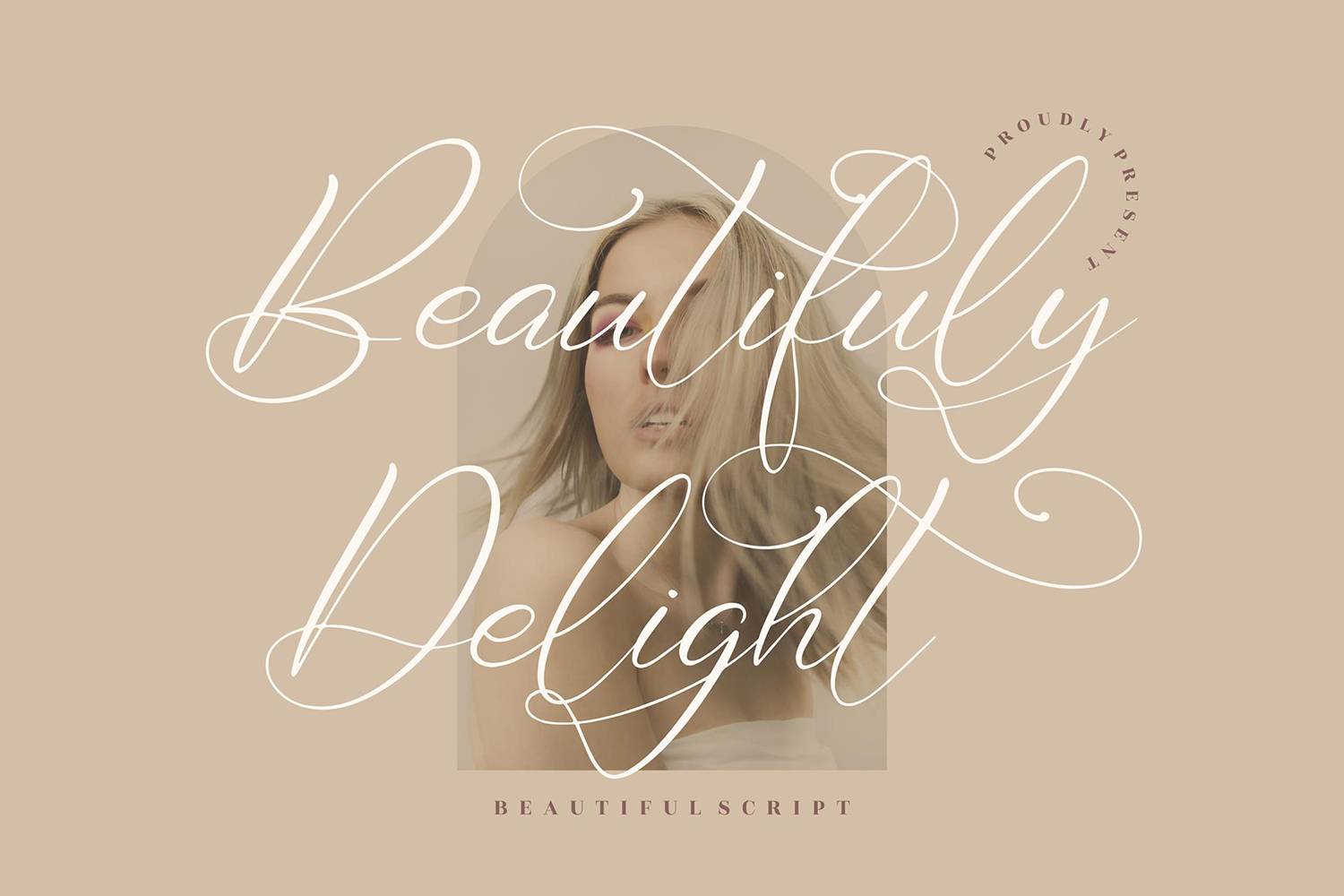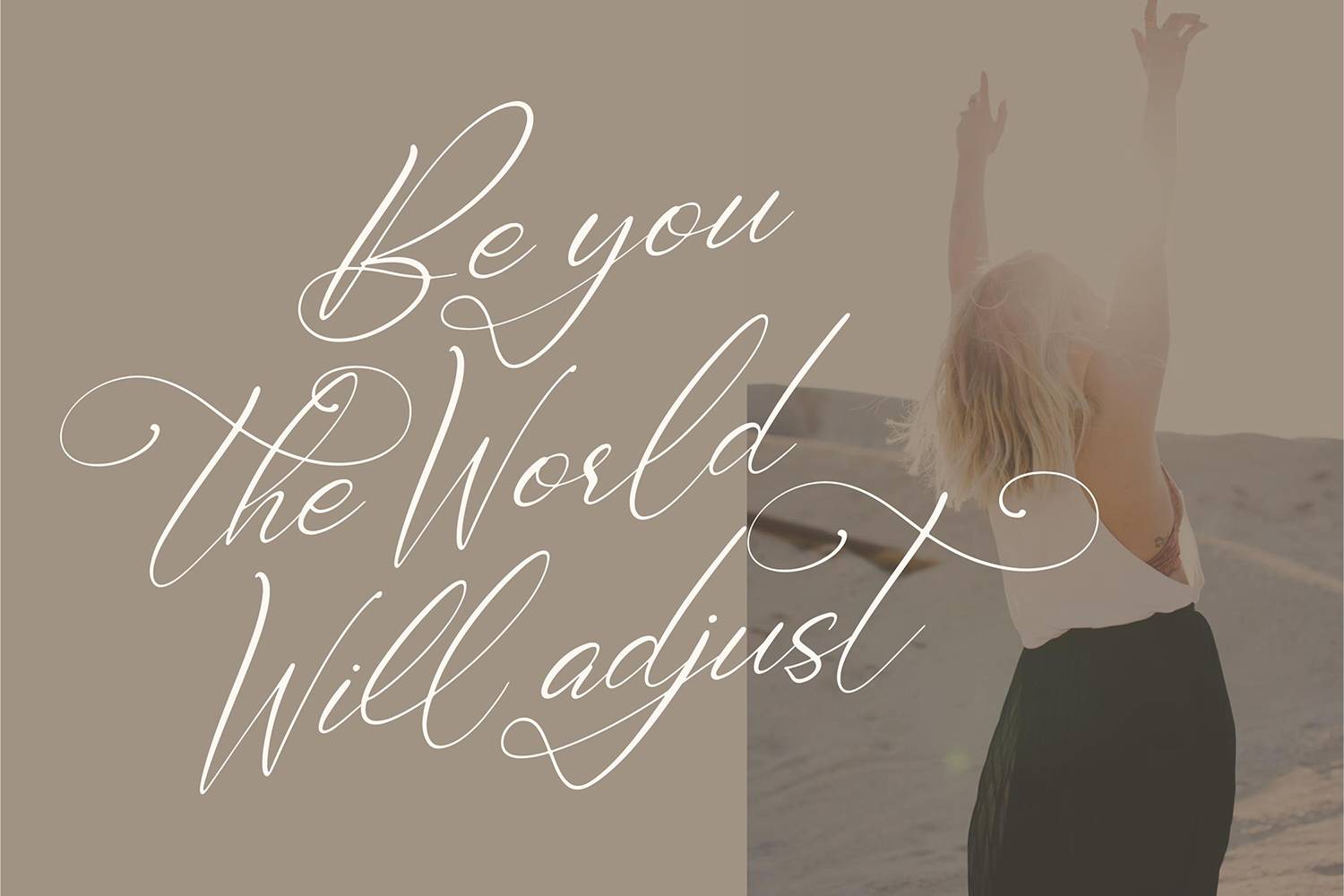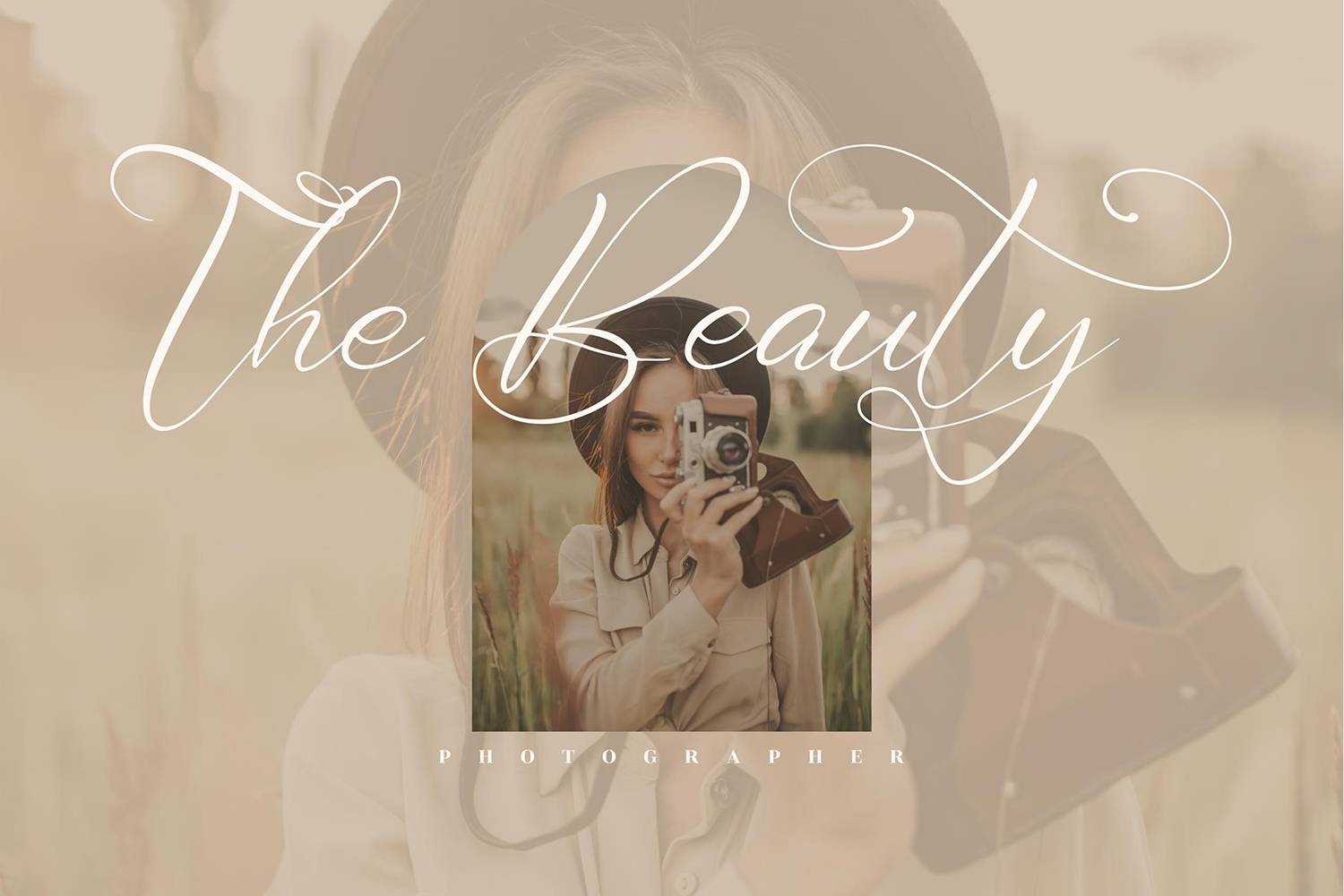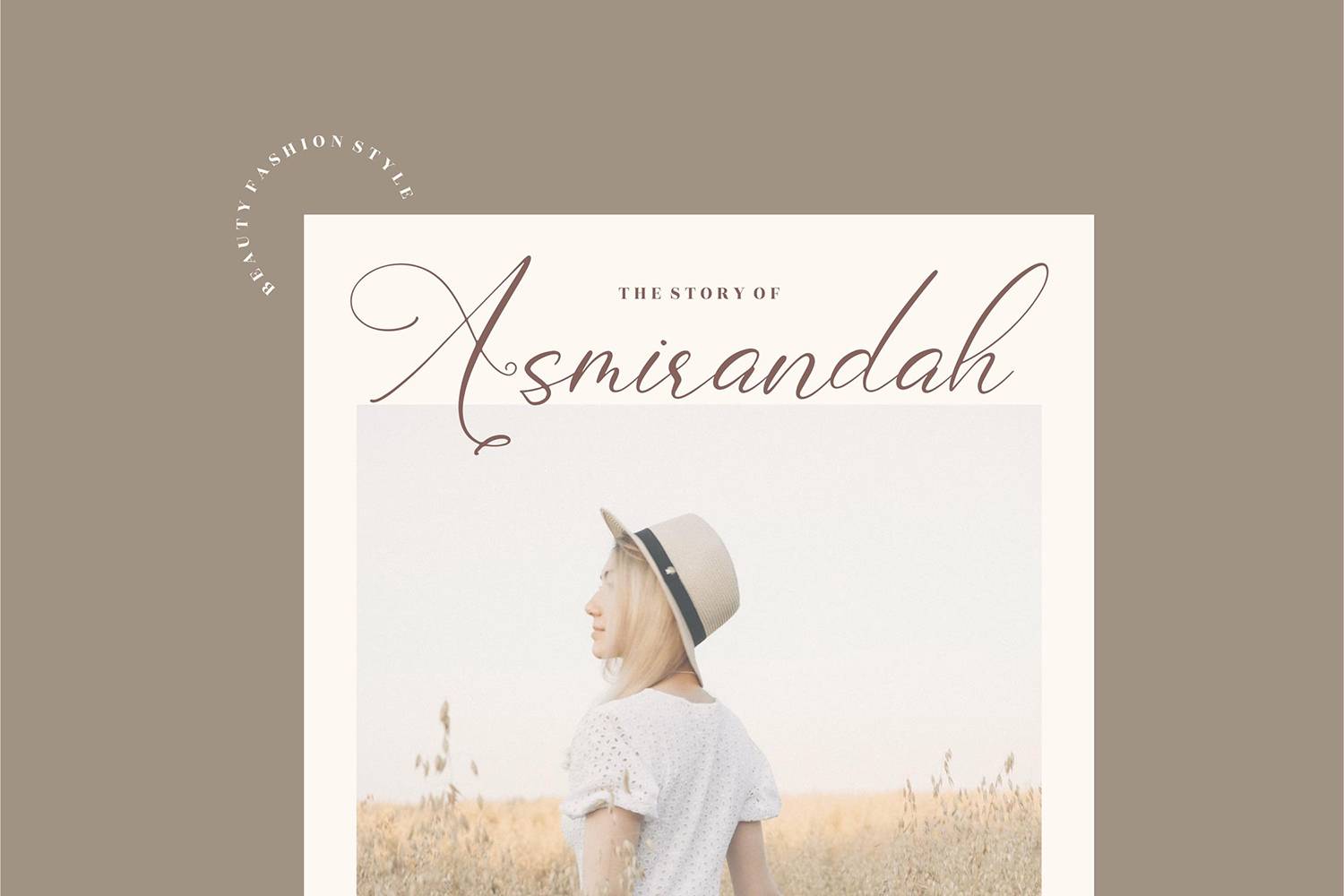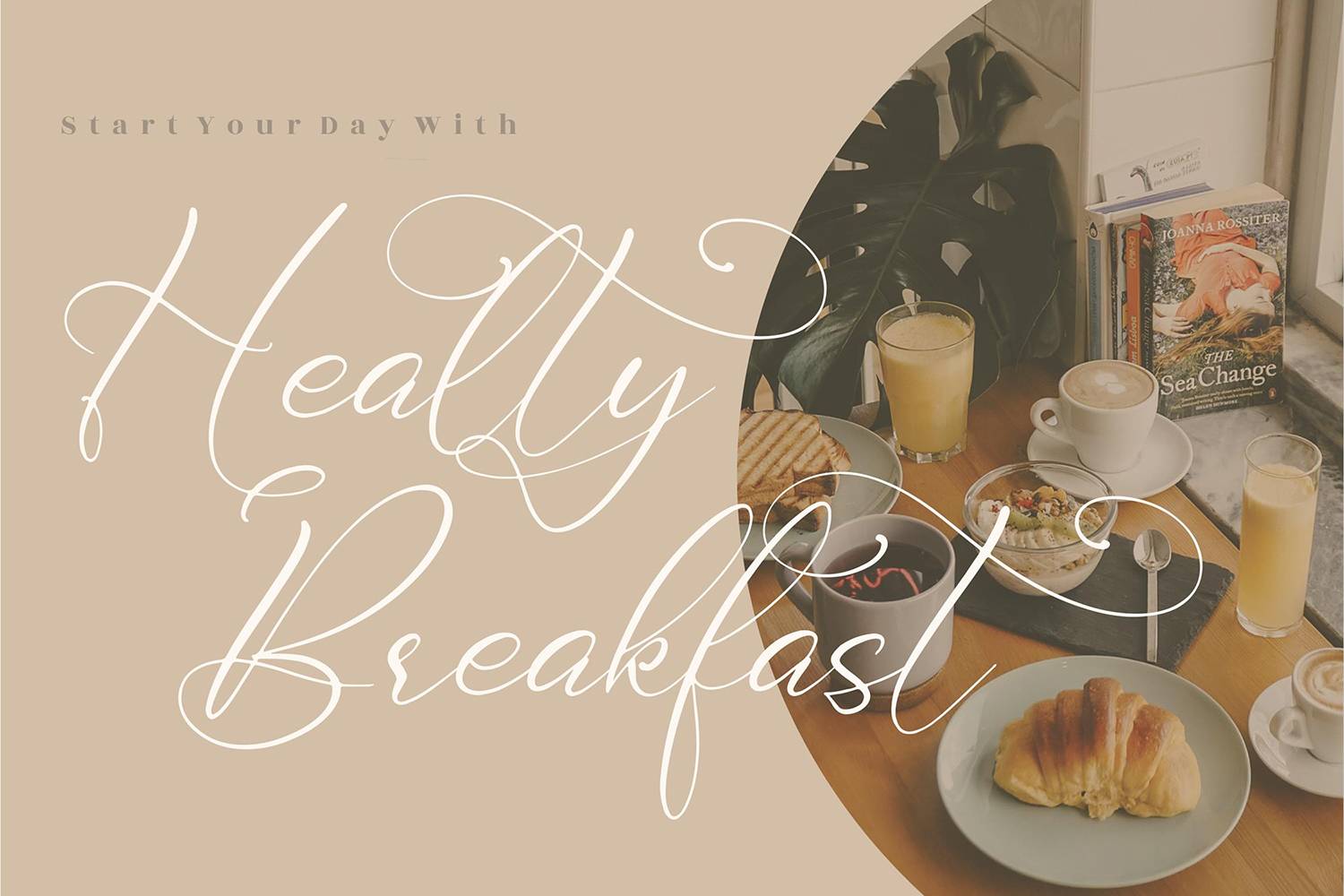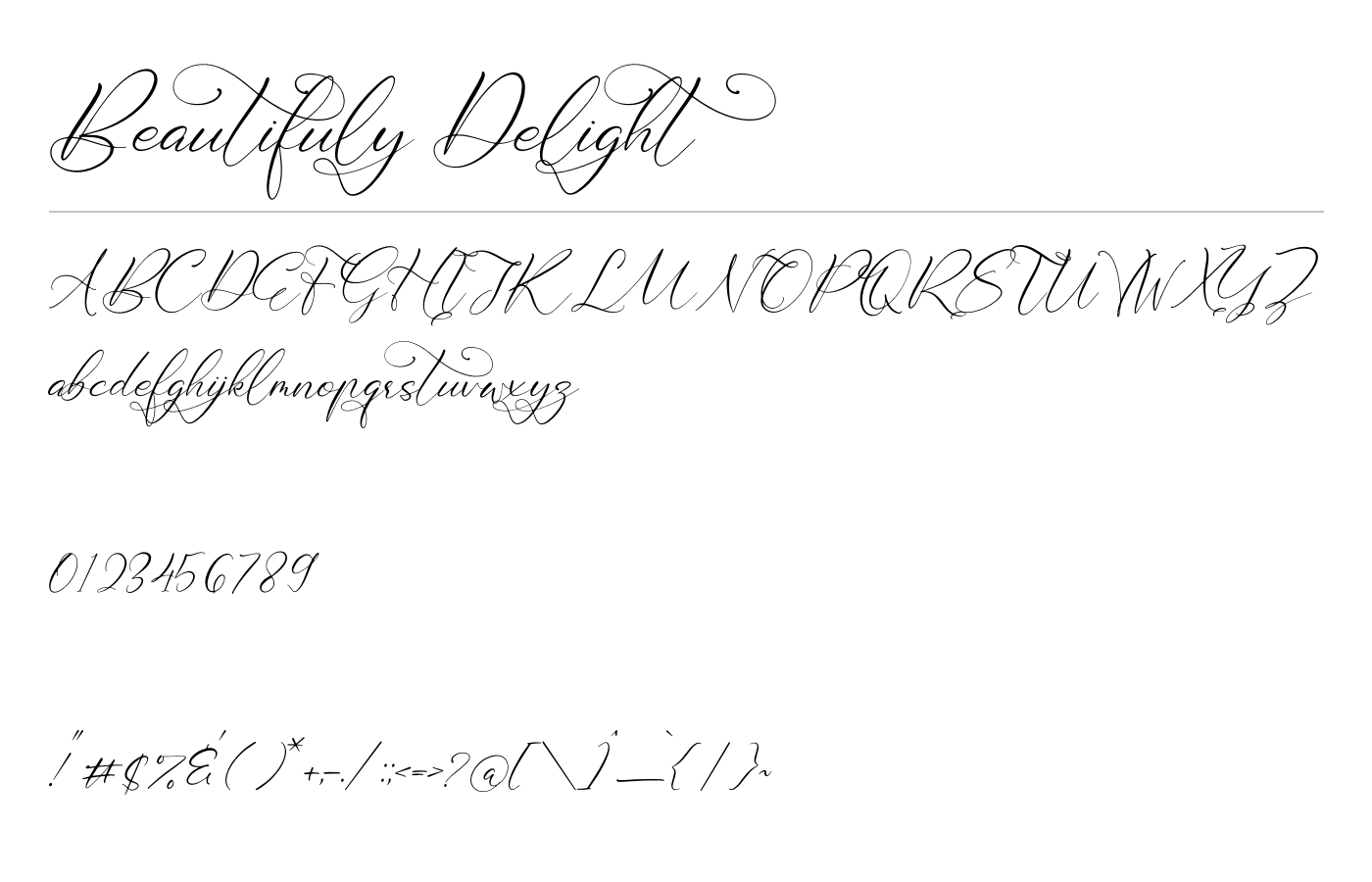
Beautifuly Delight is an elegant, delicate script font with fine, flowing strokes and graceful swashes that convey a sense of luxury and sophistication. Its light weight and high contrast between thin hairlines and slightly thicker curves make it ideal for upscale branding, wedding invitations, and stylish editorial projects seeking a refined, romantic touch. This font shines in headline or display use where its ornamental letterforms can stand out beautifully without compromising readability.
Beautifuly Delight Font
About Beautifuly Delight Font